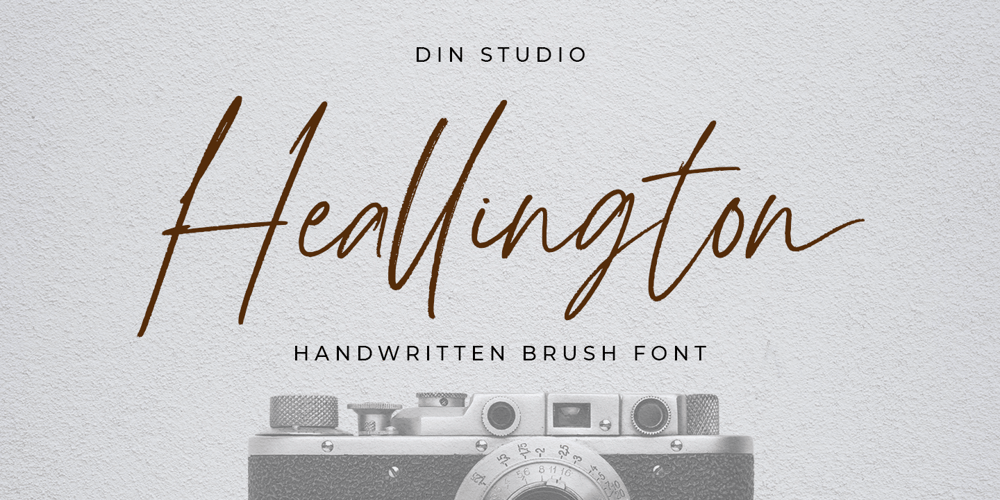
Heallington Font Family was designed by Donis Miftahudin and published by Ditatype. Heallington contains 1 styles and family package options. Heallington is a handwritten brush font. With a natural handwritten style, it brings a classy and beautiful typeface. Heallington is best used for branding, logotype, and quotes.Includes: – Heallington (OTF)Features: – Multilingual Support – Stylistics Set – PUA Encoded – Numerals and PunctuationThank you for downloading premium fonts from Dita Type